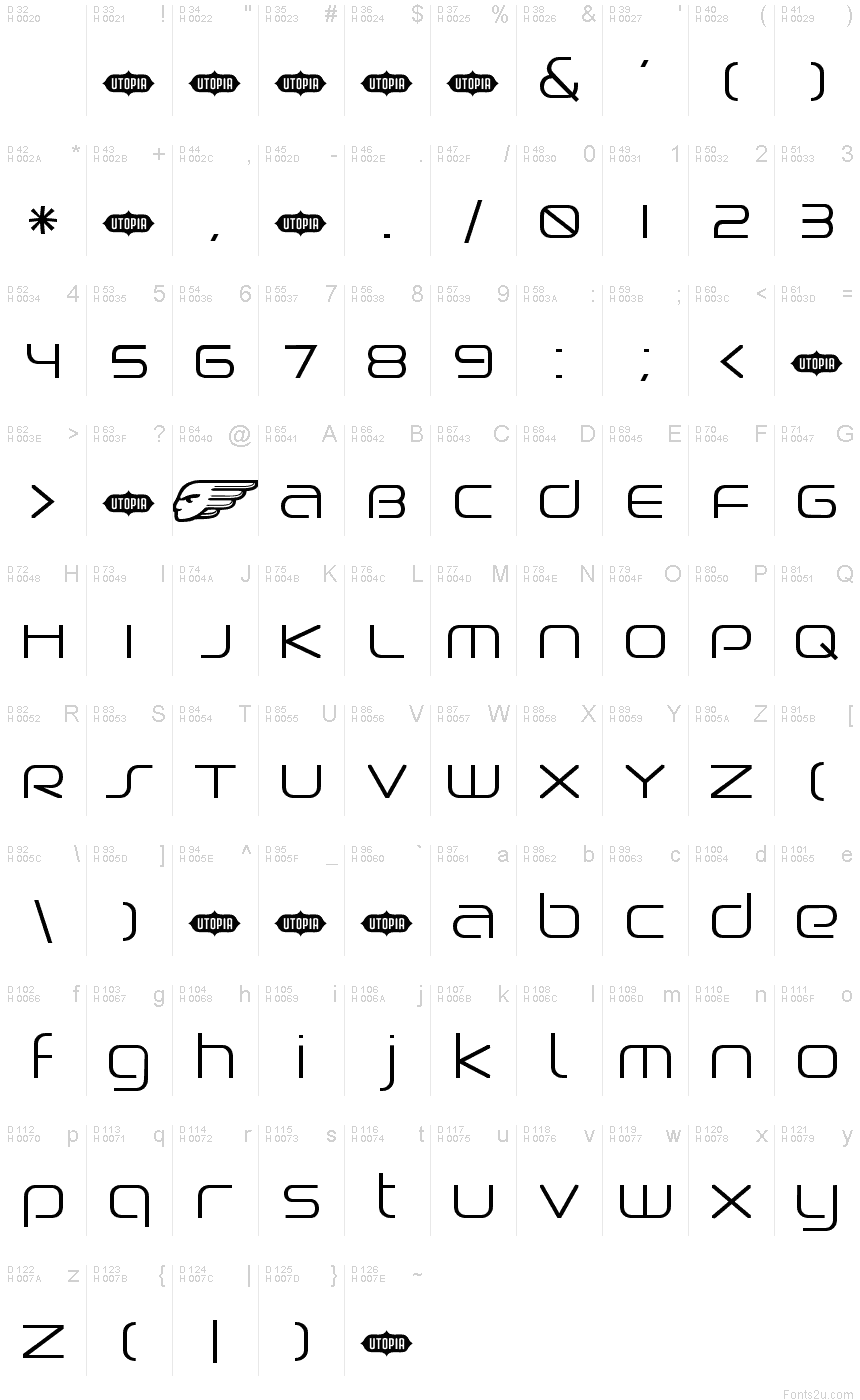
Birdman Light
Birdman Light font by Dale Harris fron Utopiafonts is a free modern display typeface that turns every word into a sleek neon sign. Its ultra-clean monoline strokes, rounded corners, and squared-off bowls create a cool, futuristic rhythm that feels both airy and precise. The Birdman family’s Light weight in particular has a crisp, wireframe quality-like letters bent from a single black cable-giving your layouts a distinctive, tech-forward personality without feeling heavy or cluttered.
Using Birdman Light, this free font shines on sci-fi posters, electronic music covers, tech branding, product packaging, event flyers, and bold UI headers that need a clear yet stylized voice. The generous internal spacing keeps it readable at medium sizes while still looking striking at large scales. Pair it with a simple geometric sans or system font for body copy, letting Birdman handle the attention-grabbing titles and wordmarks.